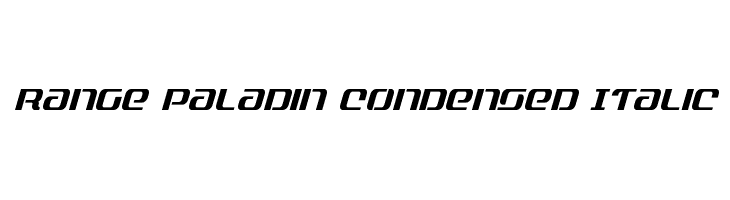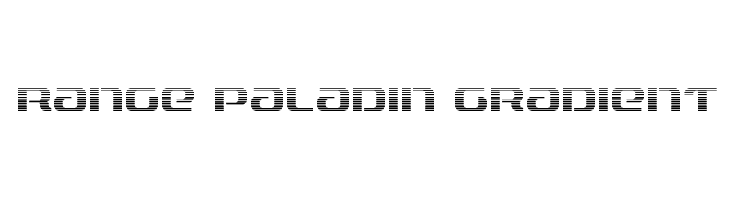
A modern, condensed italic font with a bold and angular design.
A bold, expanded, and futuristic font with geometric shapes and sharp edges.
A bold, expanded, and italic futuristic font with a sleek, modern design.
A futuristic font with a gradient effect created by horizontal lines.
A futuristic, italicized font with a gradient effect created by horizontal lines.
A bold, futuristic font with a halftone effect and geometric structure.
A bold, italicized font with a futuristic halftone effect and high contrast.
A bold, italicized font with a futuristic and dynamic design.
A bold, futuristic font with a leftward slant and high contrast strokes.
A bold, outlined font with a futuristic and geometric design.